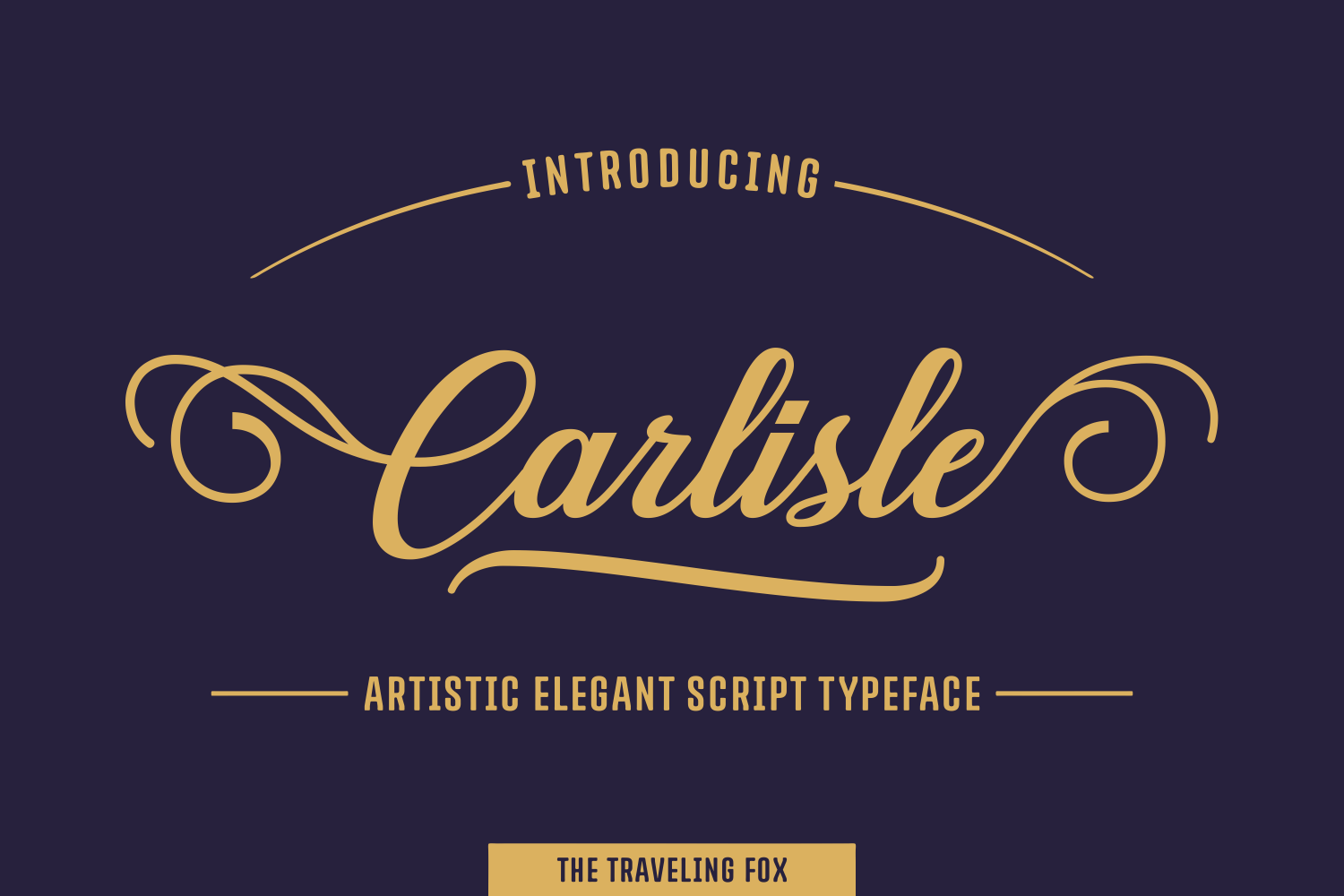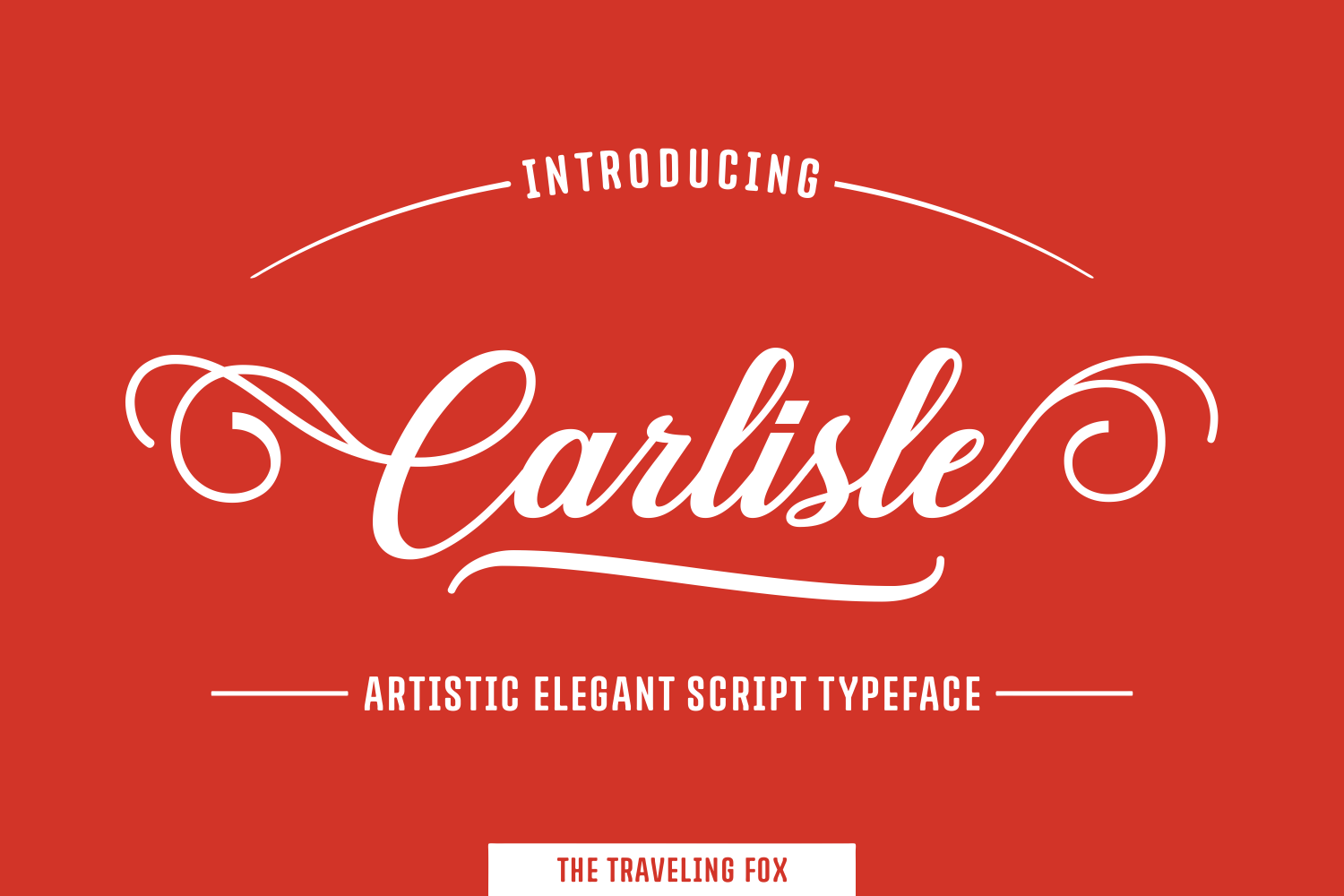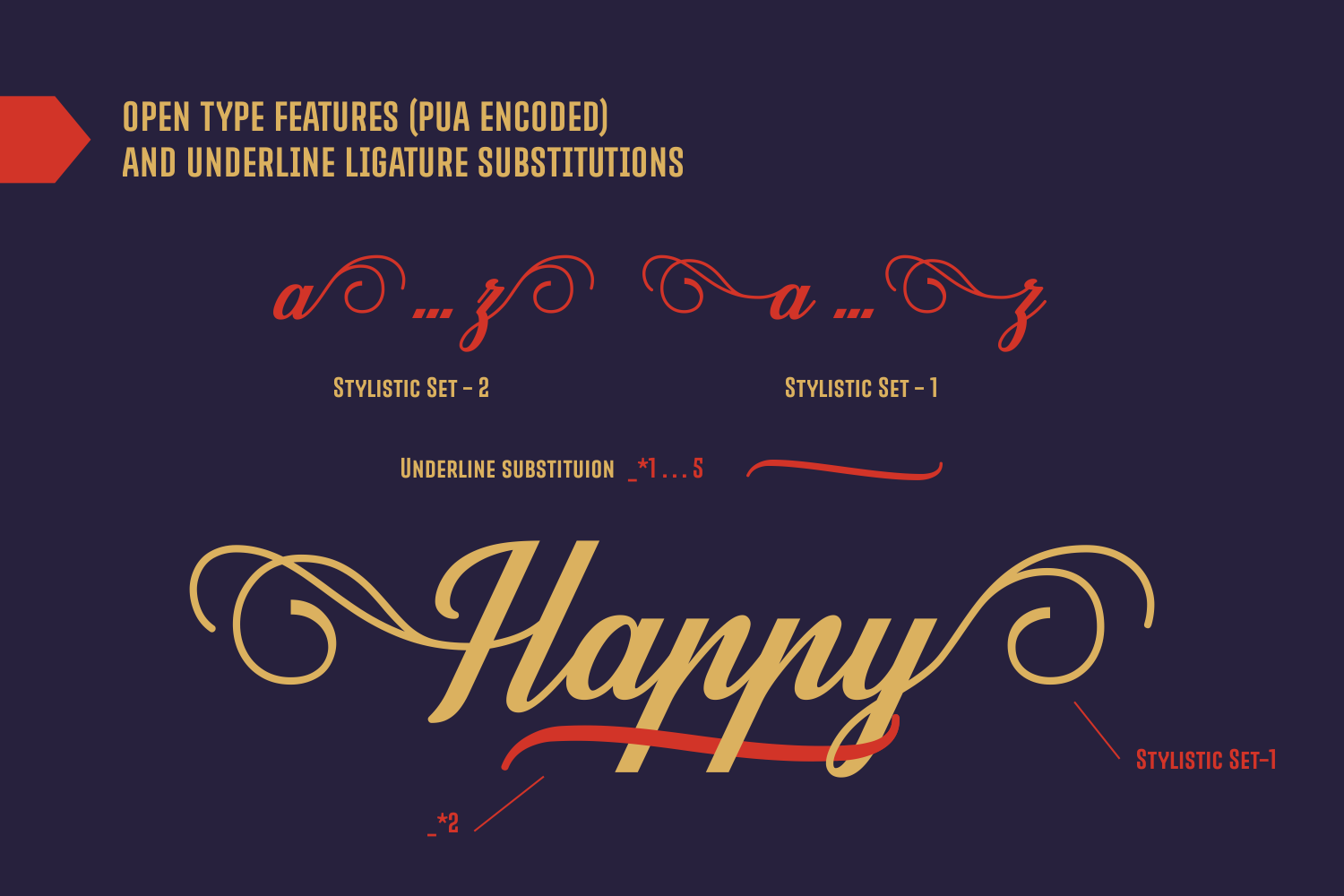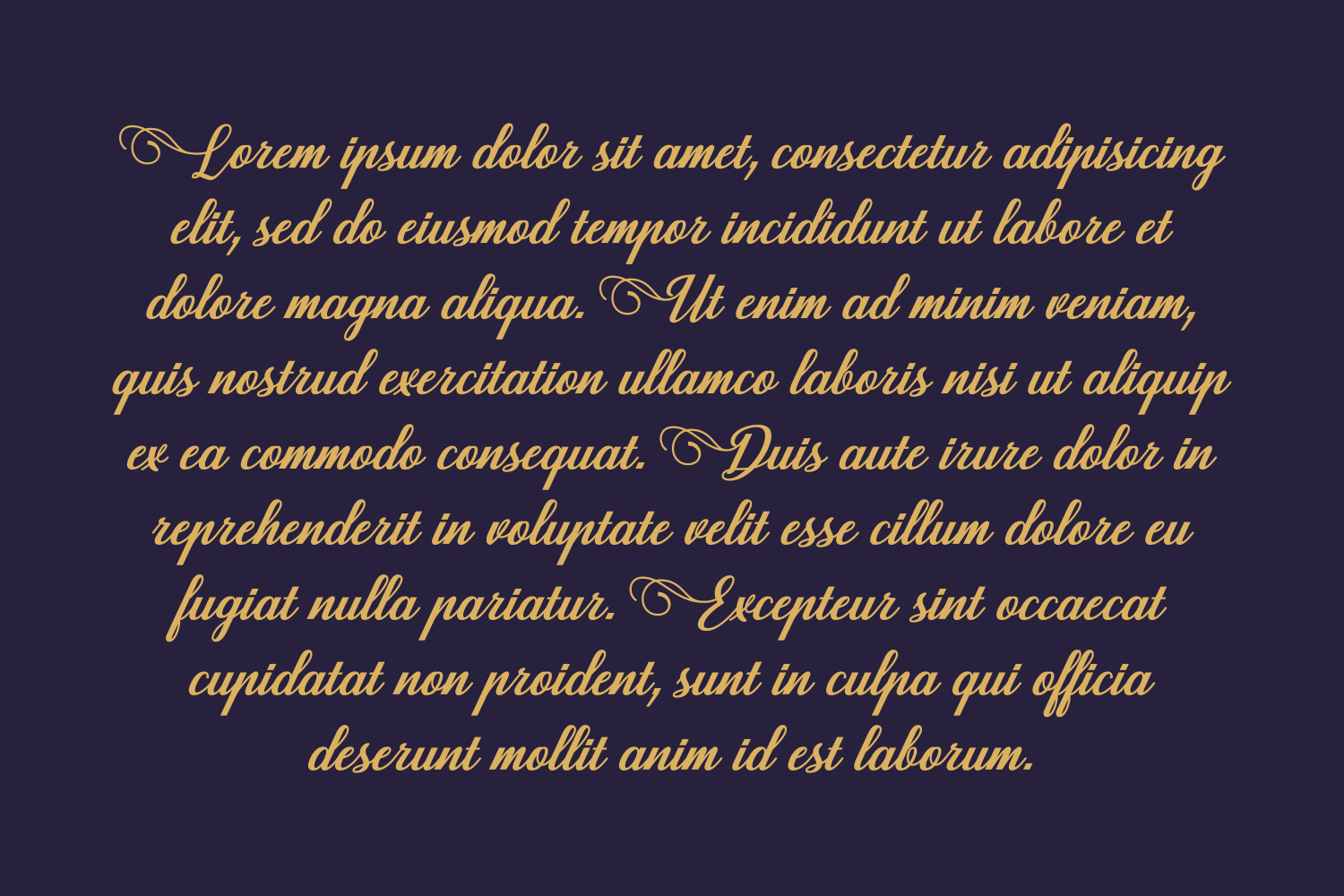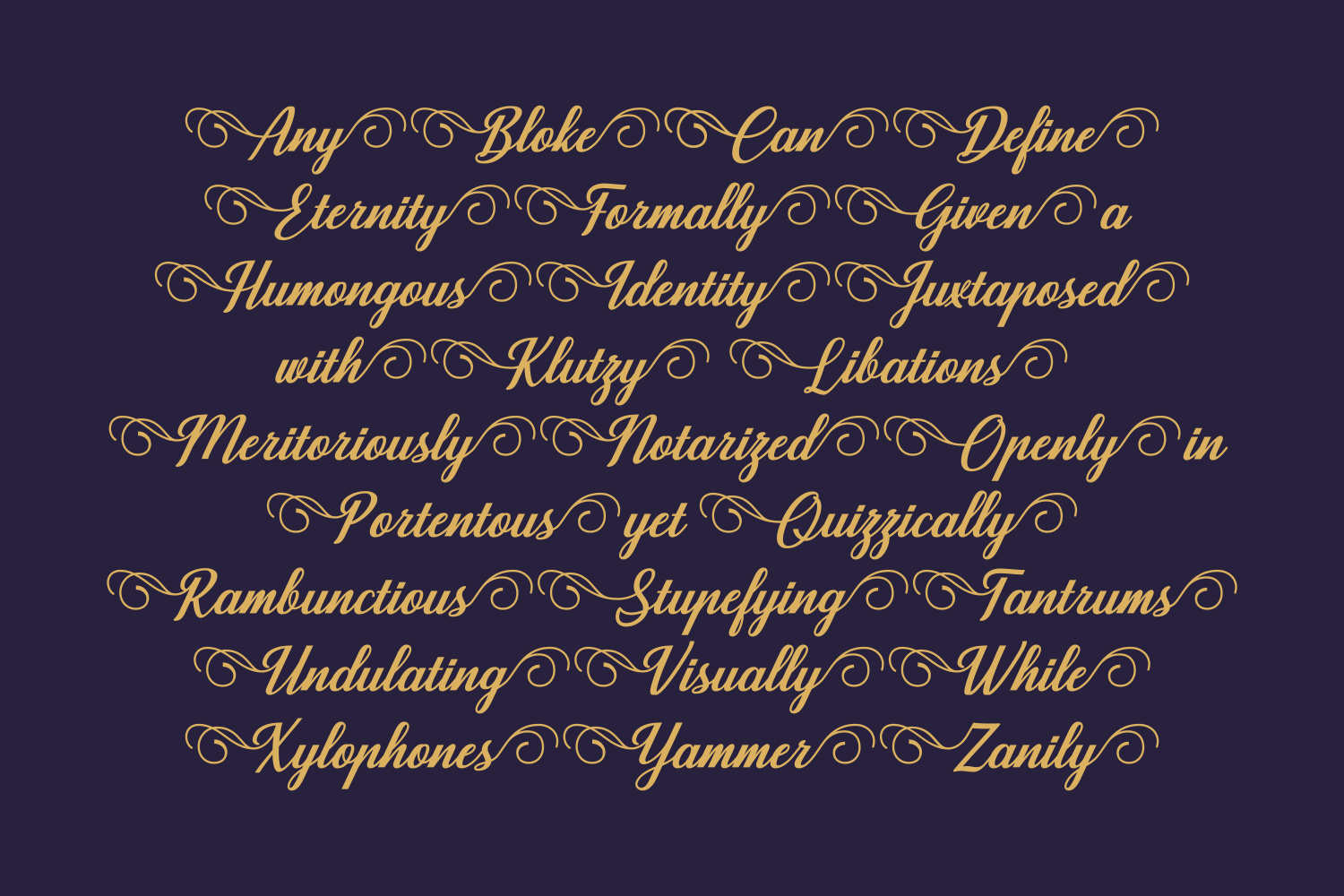
Carlisle Font
About Carlisle Font
Carlisle is a stunning script font, full of flourish and elegance. Perfect for eye-catching display designs, Carlisle is a wonderfully crafted font with great alternates for truly unique typography.